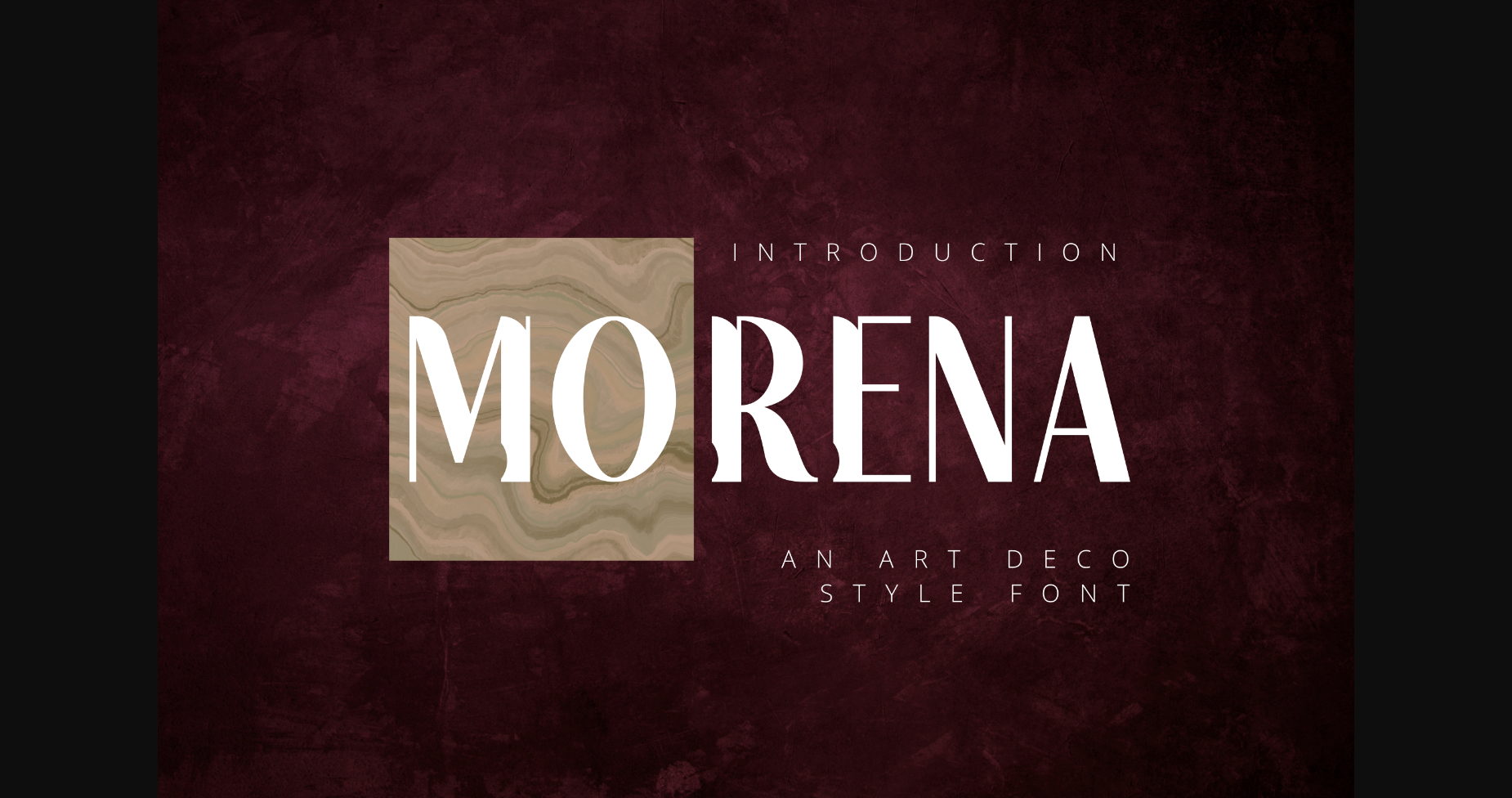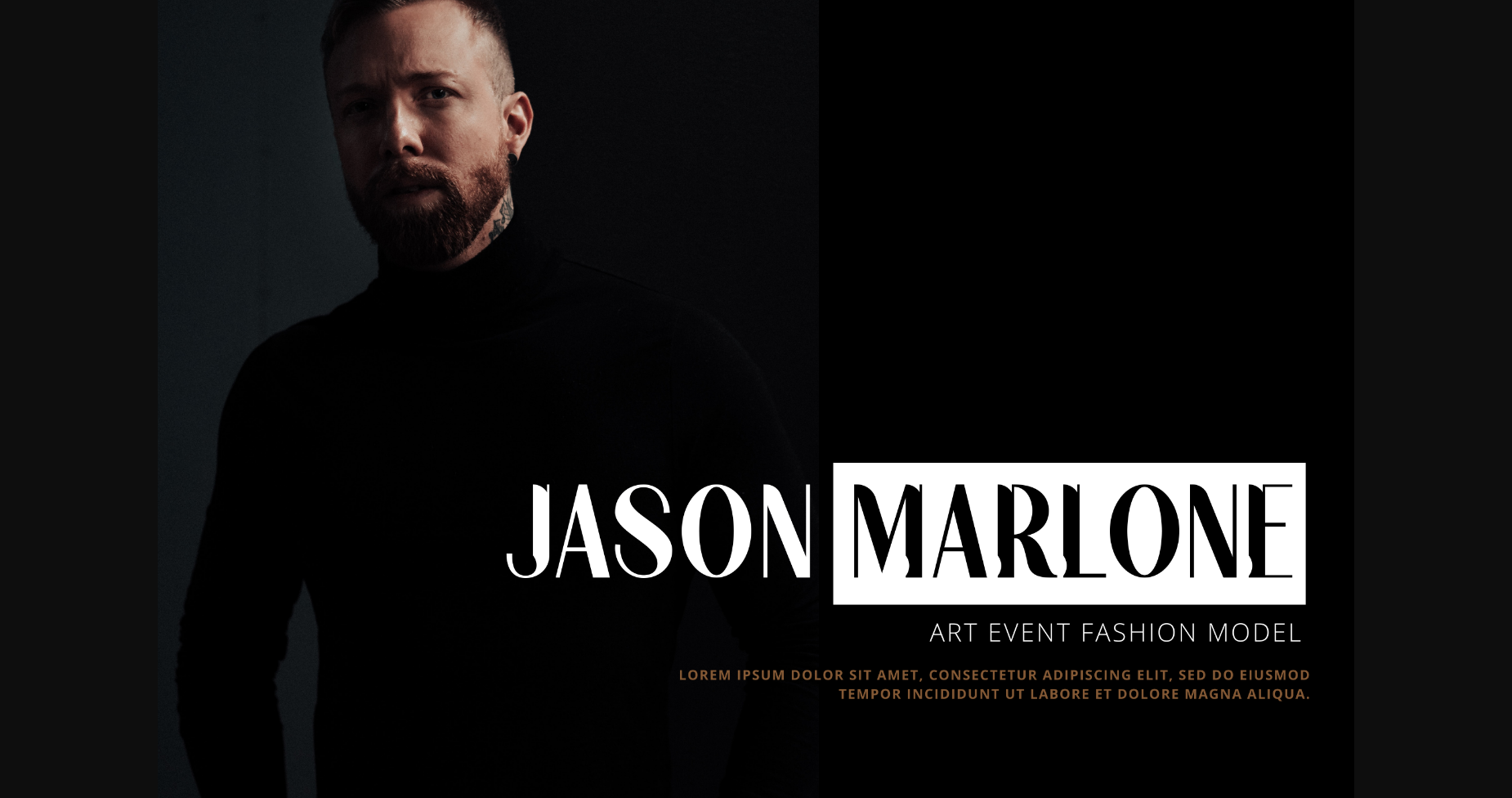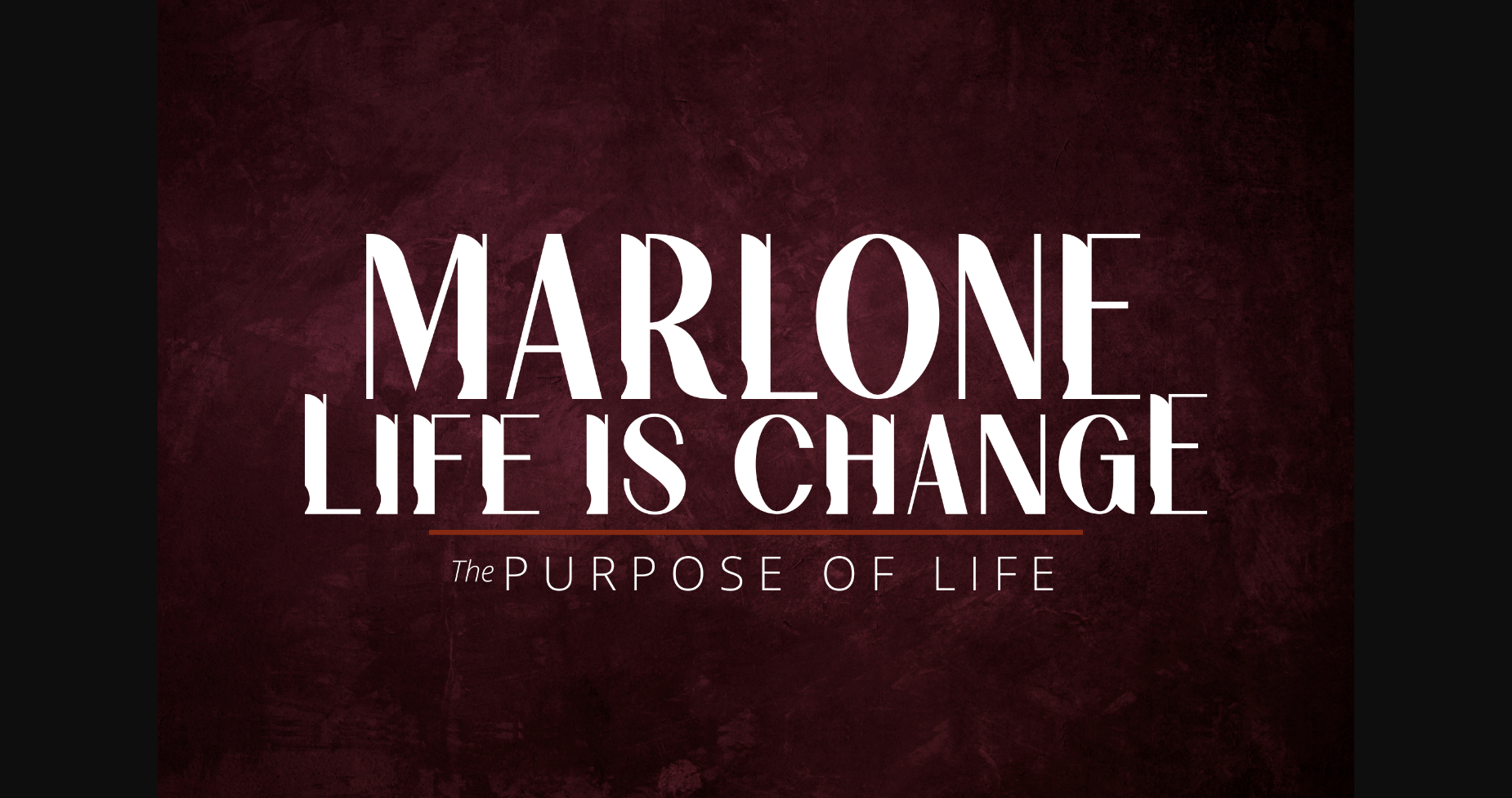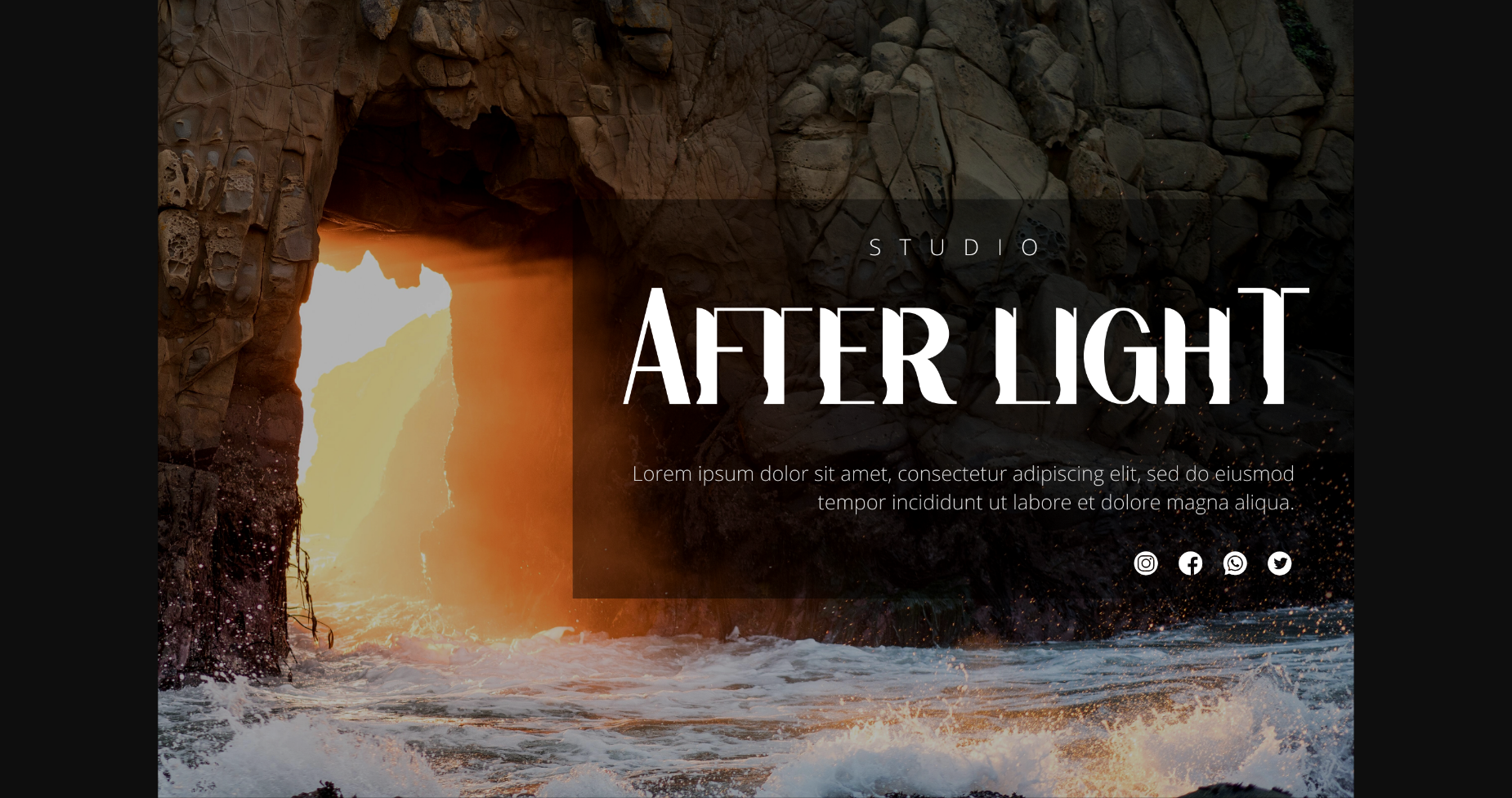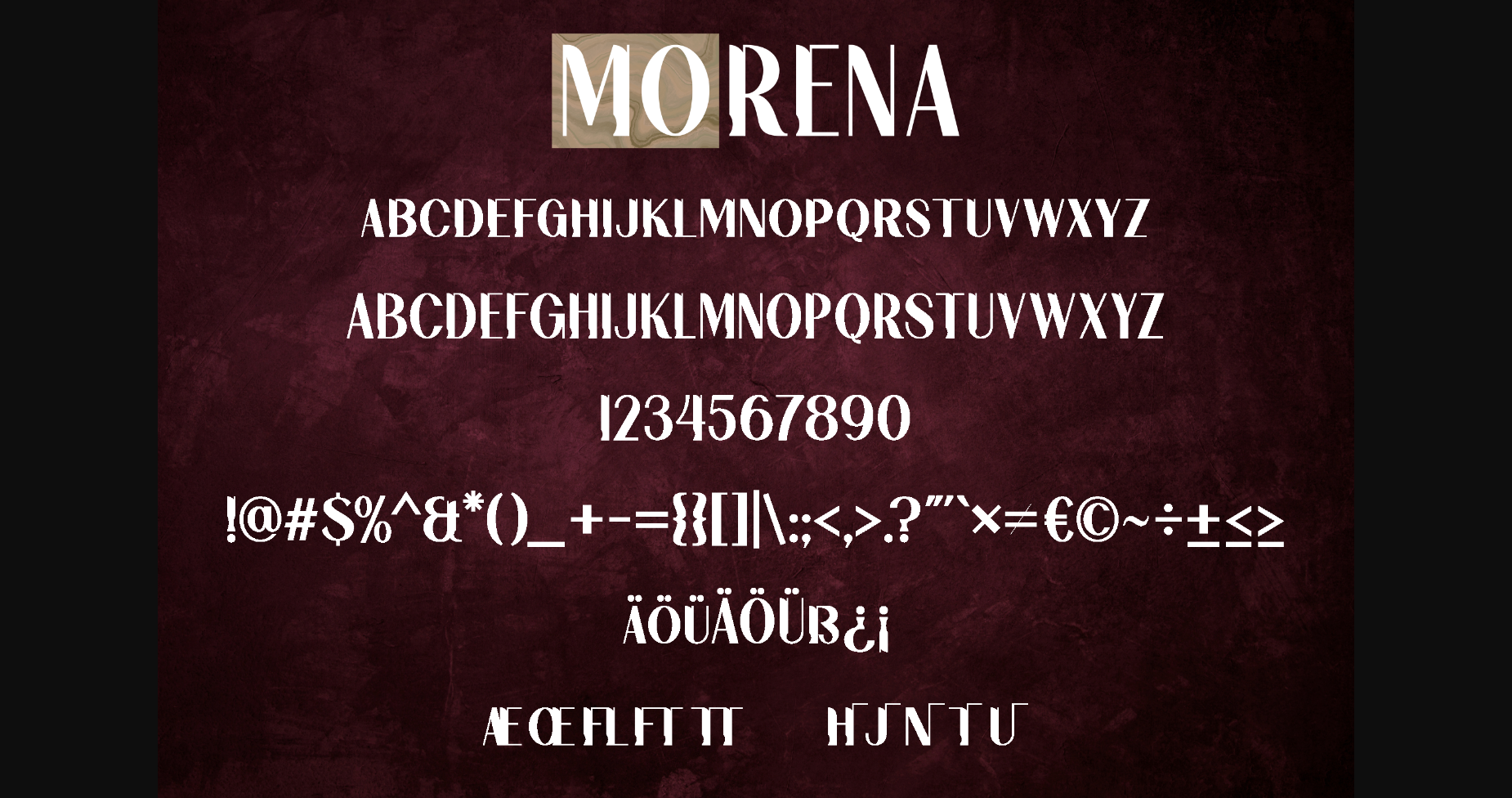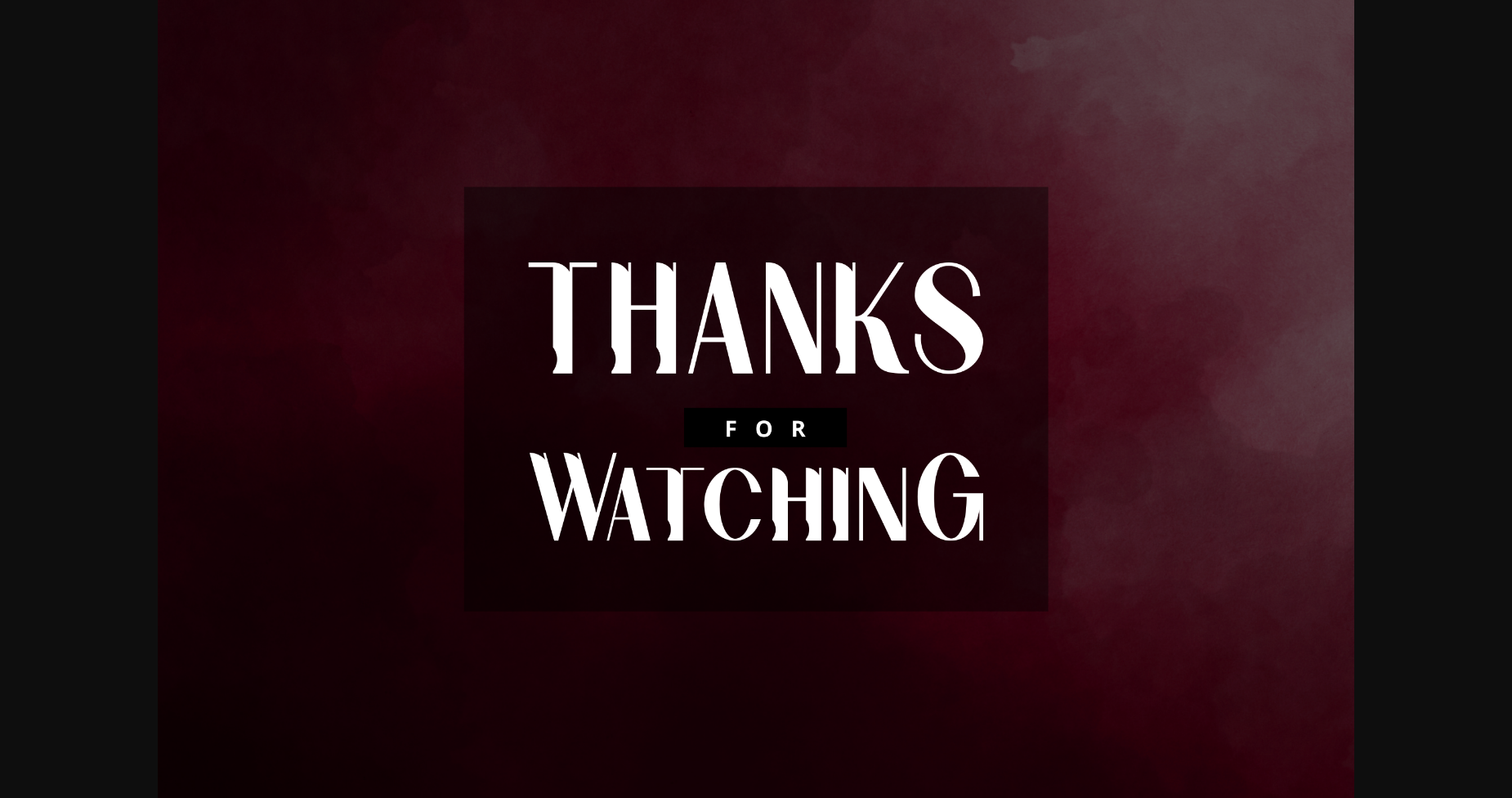
Morena is a modern sans serif font that is authentic and suitable for many of your visual needs like invitations, events, fashion, models, greeting cards, branding materials, business cards, quotes, posters, and more!